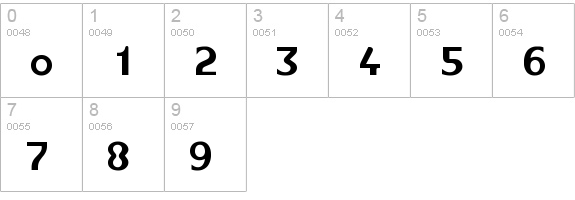
Gerstner Original Medium is a balanced, medium-weight variant in the Gerstner typeface family \xE2\x80\x94 well suited to sub-headlines, navigation, and balanced editorial work.
Gerstner Original Medium is a timeless and versatile font that exudes elegance and sophistication. With its classic yet modern design, this font is perfect for a wide range of design projects, from branding to editorial work. The clean lines and balanced proportions of Gerstner Original Medium make it a truly versatile typeface that can easily adapt to various design styles. One of the best things about Gerstner Original Medium is that it is available for free download at FontsMarket.com. This means that you can easily access this high-quality font without any cost, making it a valuable addition to your font collection. Whether you are a professional designer or a hobbyist, Gerstner Original Medium offers you the opportunity to enhance your projects with its sophisticated and stylish appearance. Overall, Gerstner Original Medium is a must-have font for anyone looking to add a touch of elegance and refinement to their designs. Download it for free at FontsMarket.com and elevate your creative projects with this exquisite typeface.